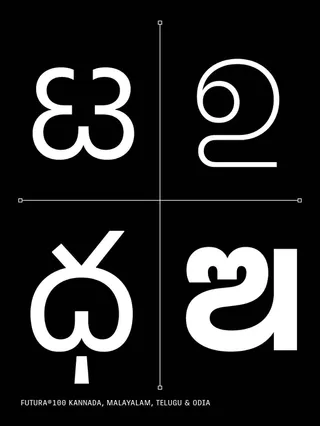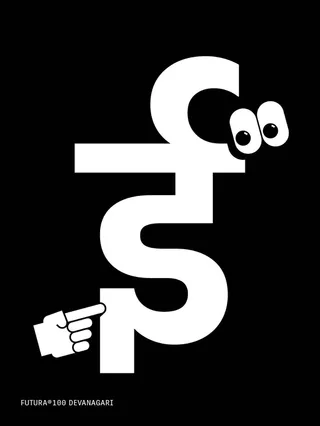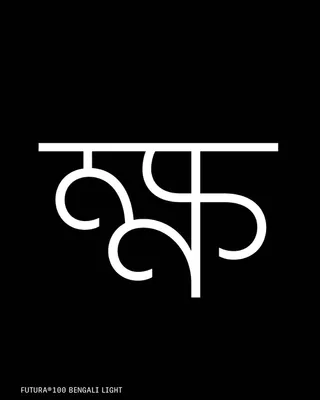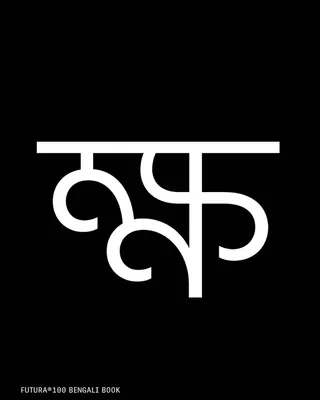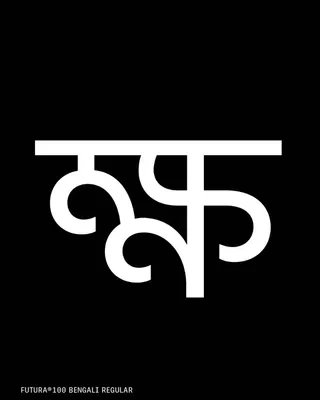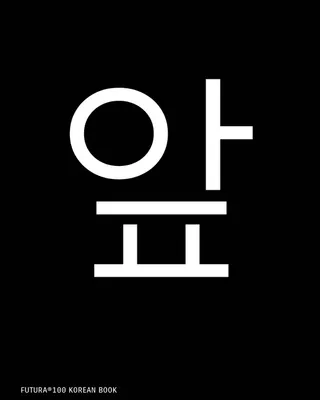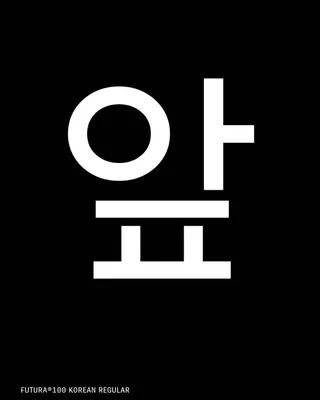
Sneak peek: Futura®100
Paul Renner’s beloved geometric sans, reinterpreted into Chinese, Indic scripts, and Korean.
We’re very close to releasing Futura®100 in some of the world’s most-used scripts, and we wanted to give you a sneak peek of what you can expect. Futura®100 is coming soon in Bengali, Chinese, Devanagari, Gujarati, Gurmukhi, Kannada, Korean, Malalayam, Odia, Tamil, and Telugu. They will join Arabic, Armenian, Cyrillic, Georgian, Greek, Hebrew, Khmer, Lao, Myanmar, PanAfrican, and Thai. This means that with the upcoming release, Futura®100 will serve more than 90% of the world’s population.
With such extensive coverage, Futura®100 is a great fit for agencies and brands with global reach and multinational commitments.
Original Design: Paul Renner
Original Foundry: Bauer Types
In concert with Bauer Types, TypeTogether has brought together the widest global talents to release Futura®100, the epitome of minimalist geometric typefaces, while maintaining faithfulness to the original shapes. Not an evolution, but a true expansion across time that honours Renner’s intention.